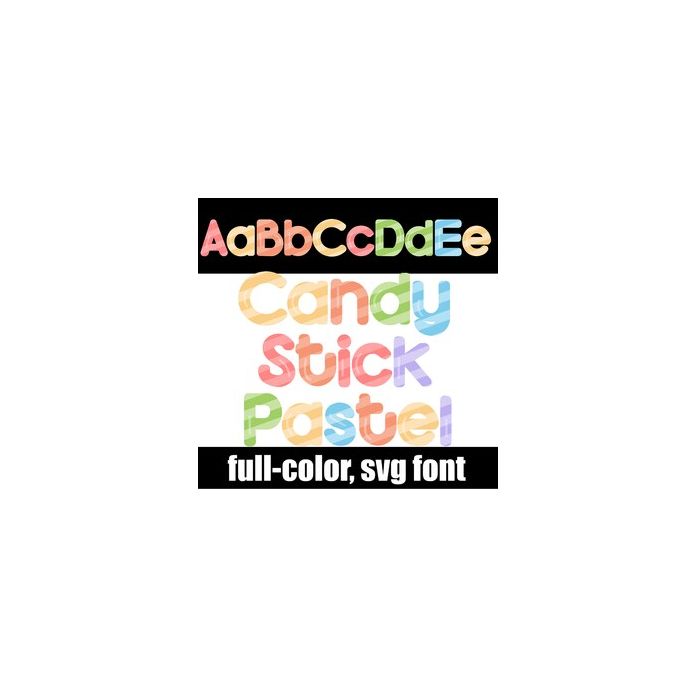
This full-color font features striped candy lettering in a pastel color palette. There is an alt case w/ additional colors you can access through your system or Silhouette's glyph map.